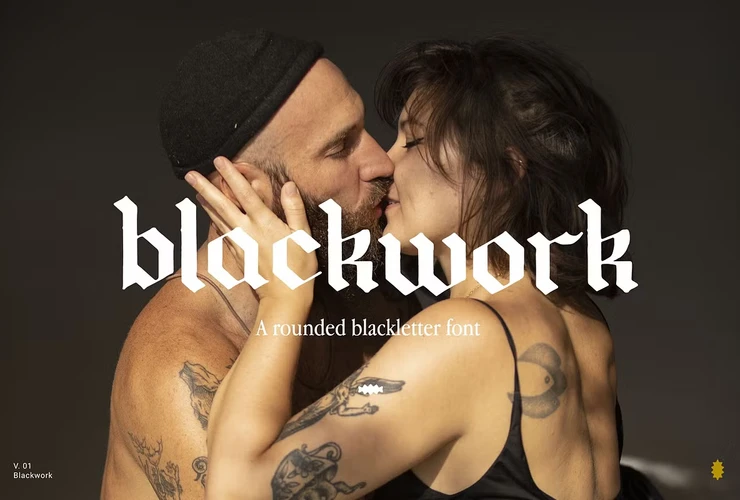
Blackwork: The Bold and Beautiful Blackletter Font
Blackwork is a striking blackletter font that brings a bold and unique style to any design project. With its distinctive rounded look and natural, handwritten feel, Blackwork stands out in the world of typography. This versatile typeface is perfect for designers looking to make a statement and add a touch of elegance and flair to their work.
Key Features of Blackwork
Blackwork is designed to be versatile, making it ideal for a wide range of applications. Whether you’re crafting logos, branding materials, invitations, or social media graphics, this font delivers a bold and impactful visual experience. Its strong and striking appearance commands attention, while the rounded edges soften its overall look, creating a balance between boldness and approachability.
For inspiration and presentation ideas, the product’s visual showcase features stunning photos by Federica Giacomazzi from Sparrow&Snow. Explore Blackwork and elevate your designs with this bold blackletter font.